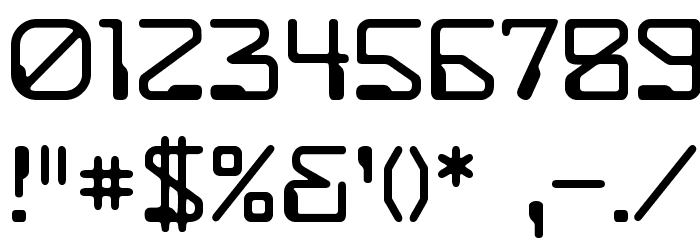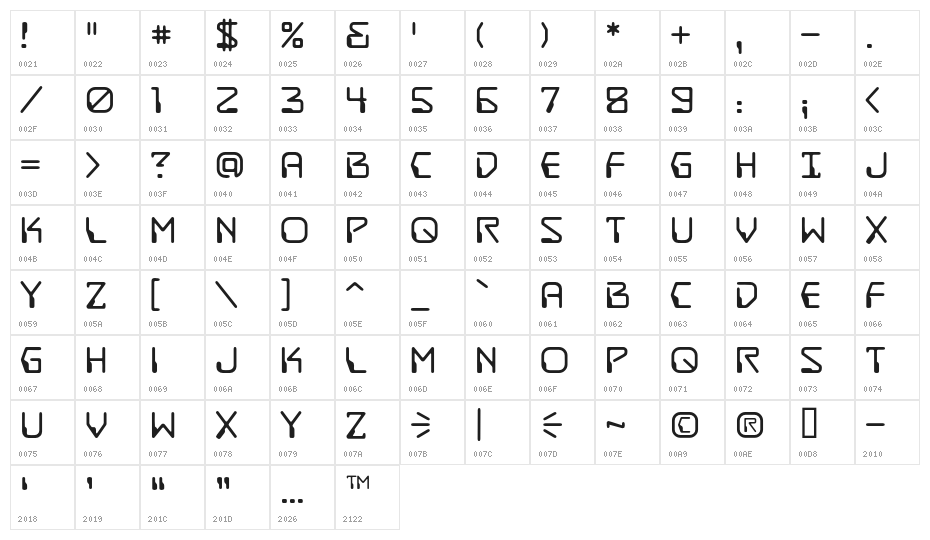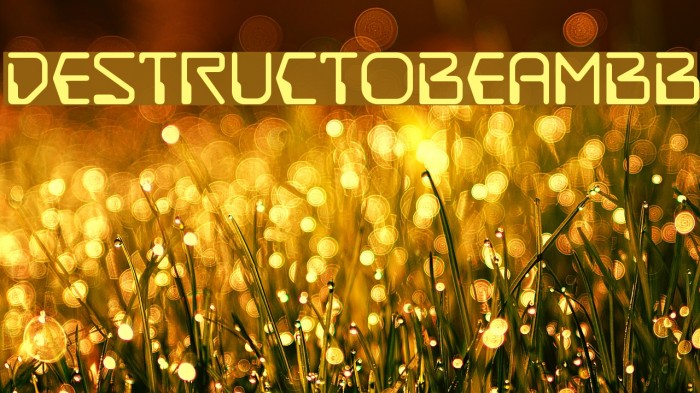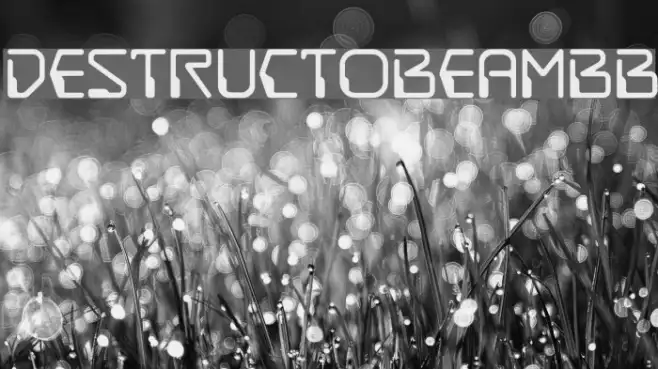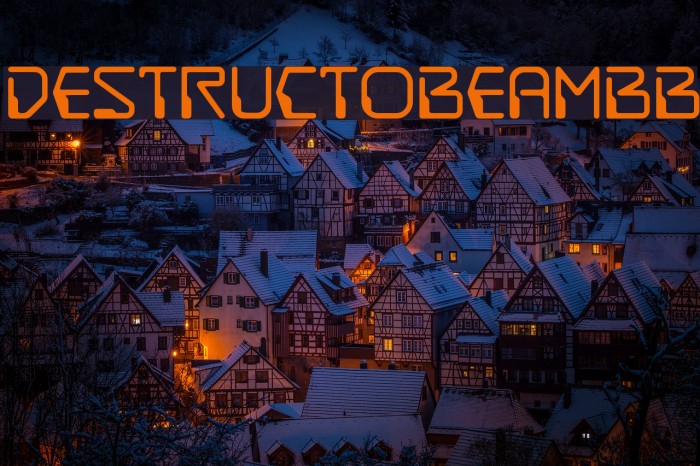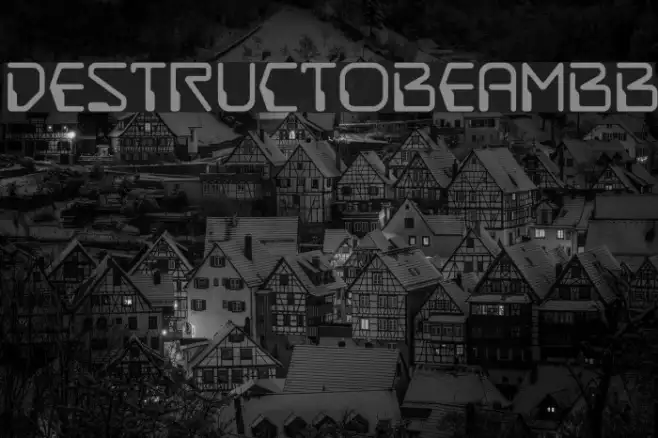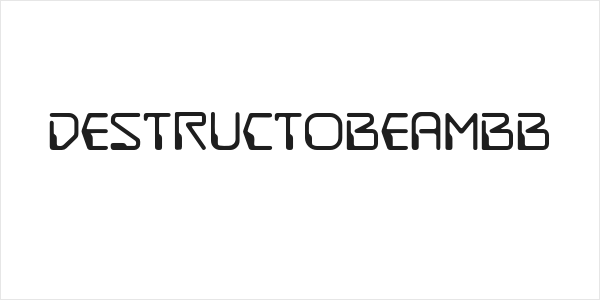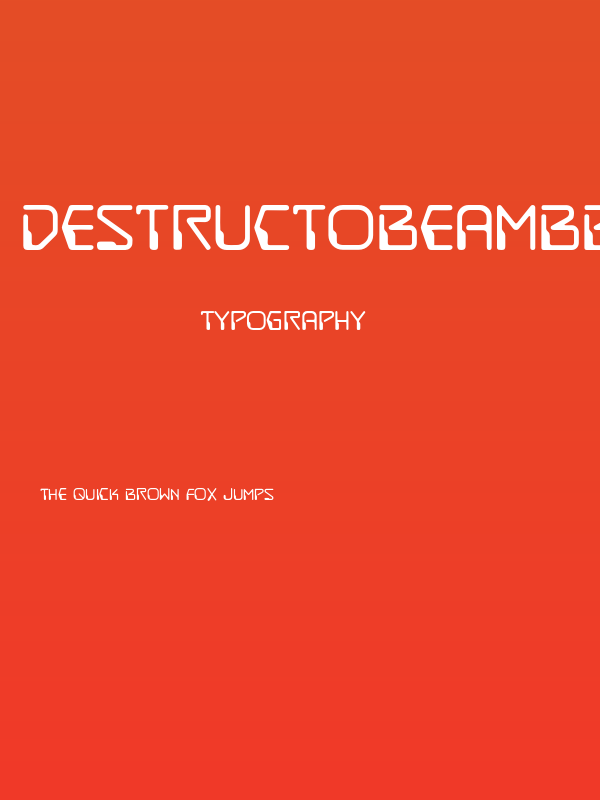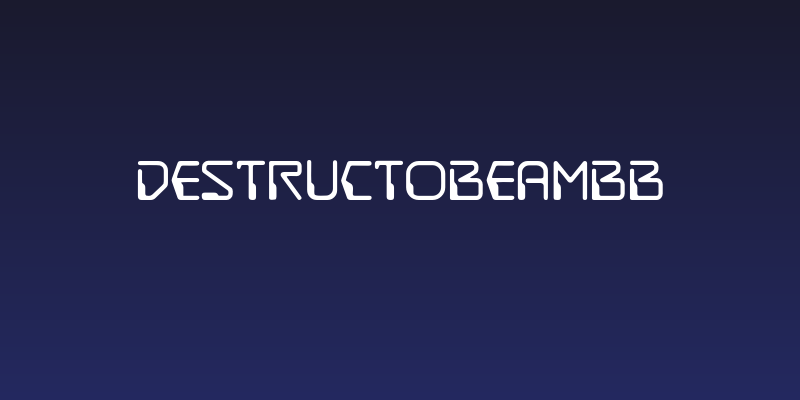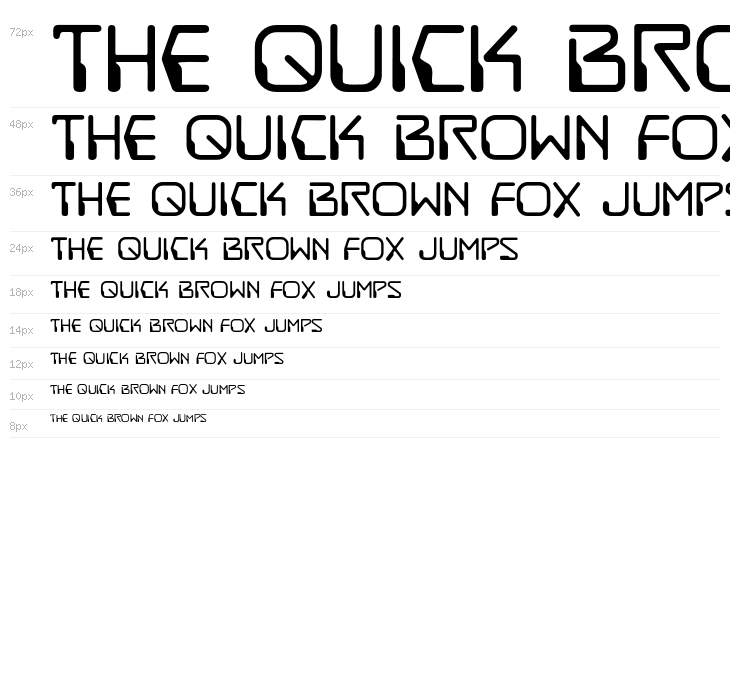
DestructoBeamBB Font
DestructoBeamBB Description
This font features a futuristic and geometric design, characterized by its bold, angular shapes and distinct cut-out sections within each character. The uppercase letters are uniform in height, with a consistent stroke width that gives it a strong, cohesive appearance. The numerals and special characters maintain the same stylistic elements, ensuring a harmonious look across all glyphs. Its unique style is reminiscent of digital or sci-fi themes, making it ideal for projects that require a modern and edgy aesthetic.
| Proposed Projects | Ideal for sci-fi themed designs, video game interfaces, tech branding, and futuristic posters. |